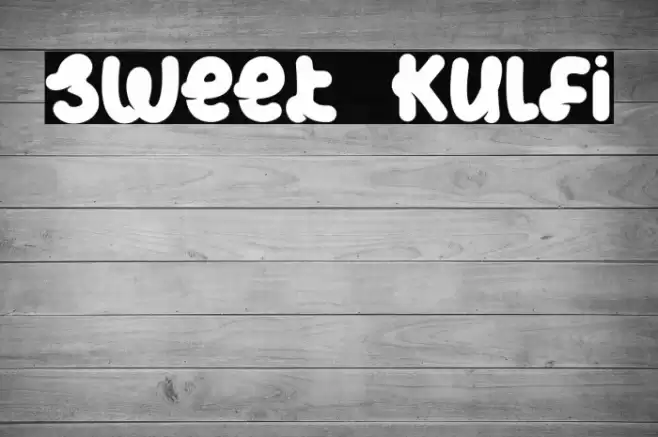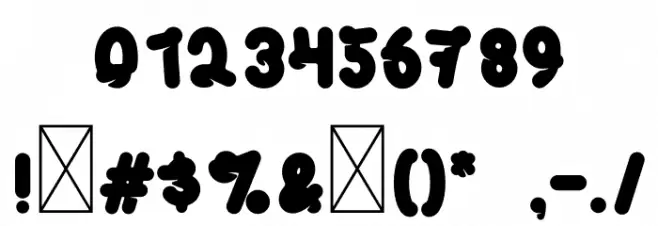
Sweet Kulfi Font
Sweet Kulfi Description
This font features a playful and bold design with rounded, bubbly characters that convey a sense of fun and creativity. The letters are thick and have a consistent stroke width, giving them a strong presence on the page. The overall style is reminiscent of hand-drawn or graffiti art, with a modern twist. The characters are closely spaced, creating a compact and cohesive look. This font includes both uppercase and lowercase letters, numbers, and a variety of special characters, making it versatile for different design needs. The boldness of the font makes it stand out, while the rounded edges soften its appearance, making it approachable and friendly.
A playful, bold font with rounded, bubbly characters ideal for creative projects from Uncategorized fonts.
- Proposed Projects: Perfect for children's books, playful branding, posters, and creative social media graphics.
- Character Spacing: Tight